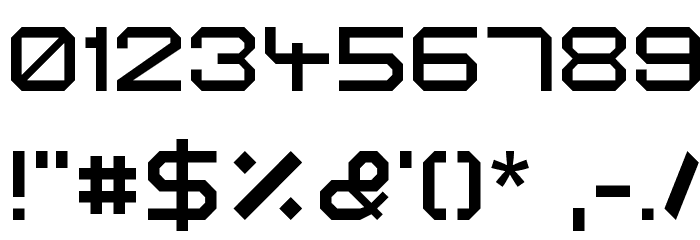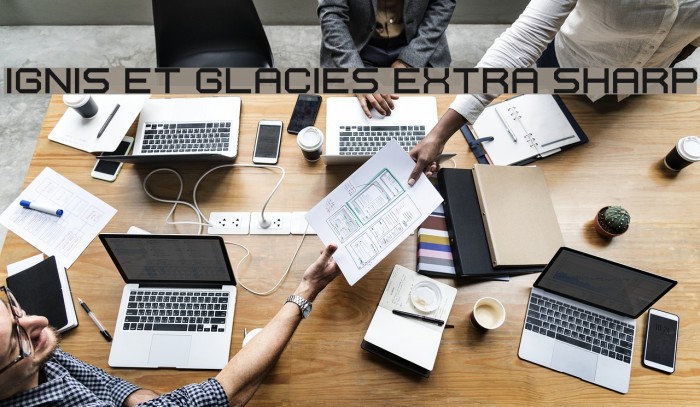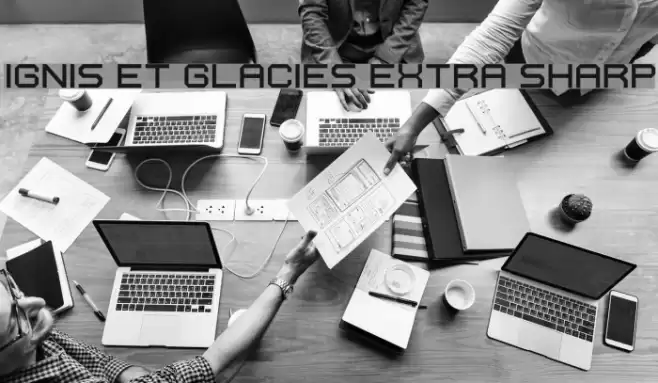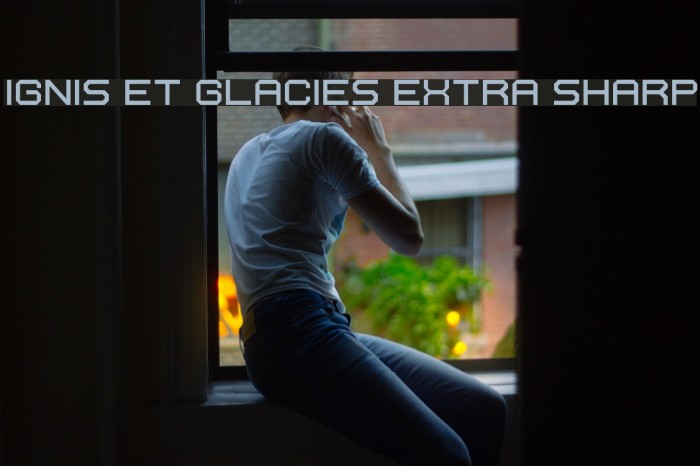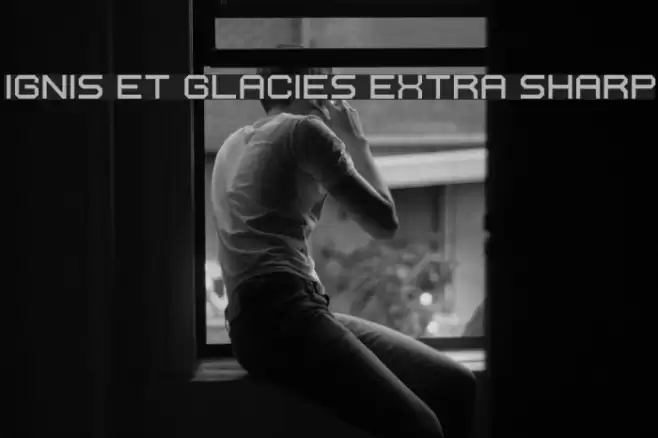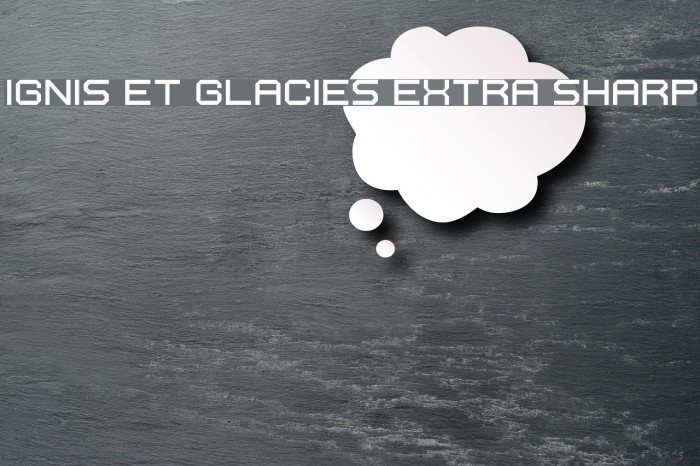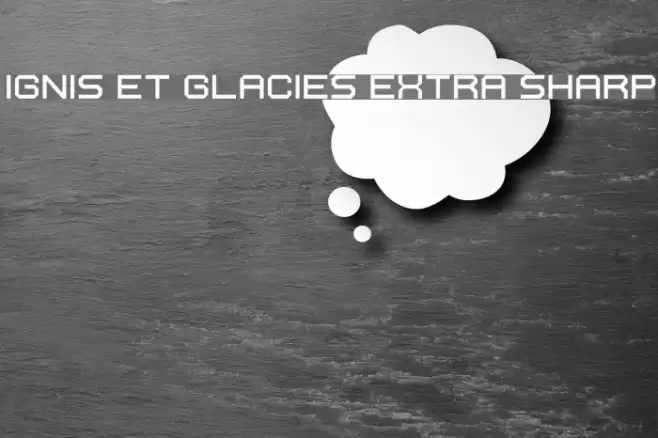
Ignis et Glacies Extra Sharp Font
✎ Sci-fi
| おすすめプロジェクト | Ideal for technology branding, video game titles, sci-fi posters, and modern digital interfaces. |